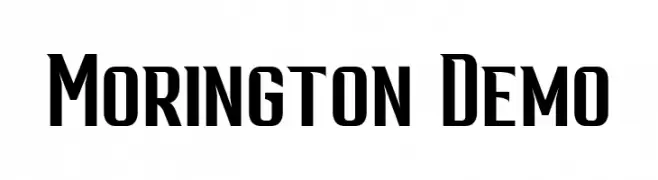
A bold, dramatic font with thick strokes and sharp serifs, ideal for impactful designs.
A bold, high-contrast serif font with dramatic strokes and elegant serifs.
A bold, modern font with geometric structure and minimal contrast.
A bold, modern font with unique curves and strong strokes.
A bold, modern sans-serif font with clean lines and strong presence.
A bold, decorative font with intricate details and a strong presence.
A bold, authoritative font with strong, thick strokes and sharp edges.
A bold serif font with strong vertical lines and pronounced serifs.
A bold, modern font with strong vertical lines and a slightly condensed style.
A bold, modern font with a condensed and authoritative style.